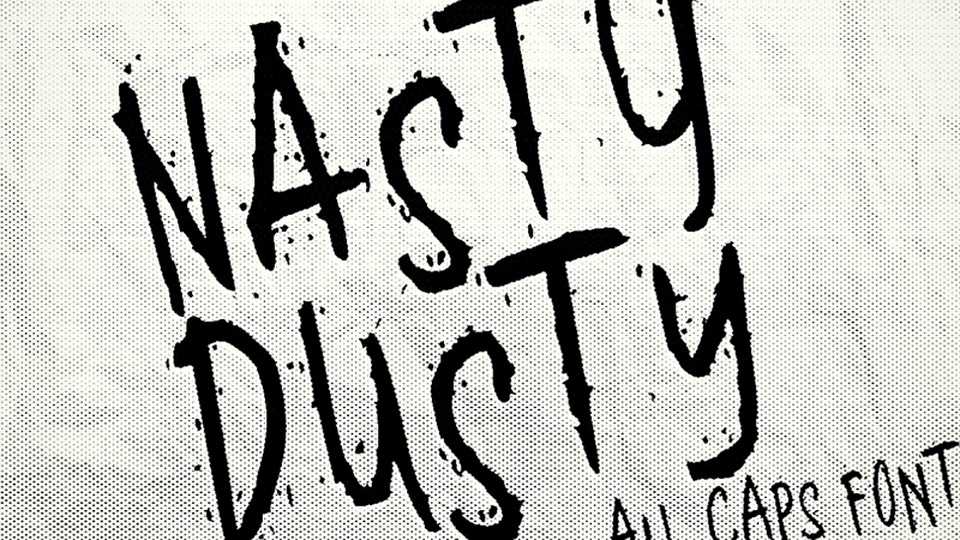
Download Nasty Dusty font, a bold handwritten typeface with a grungy look. Nasty Dusty is perfect for posters, crafting, t-shit prints, Halloween card and other fun projects.
Designer: Kurnia Setyadi